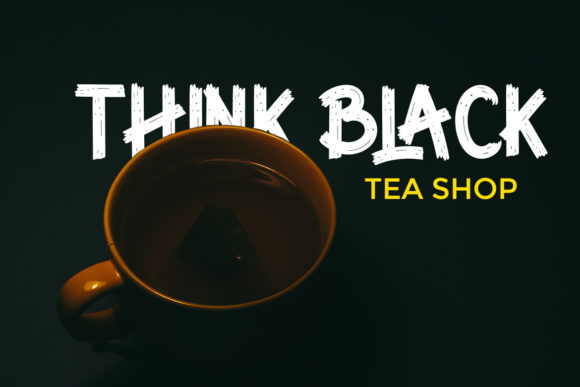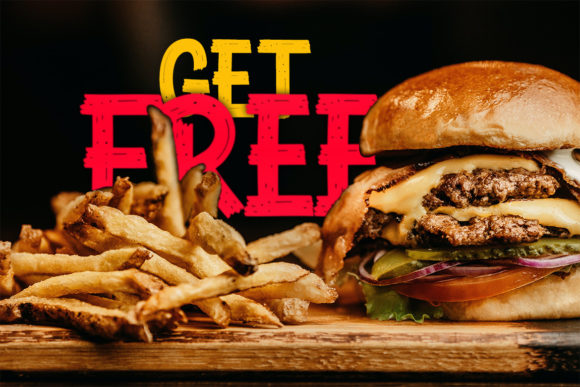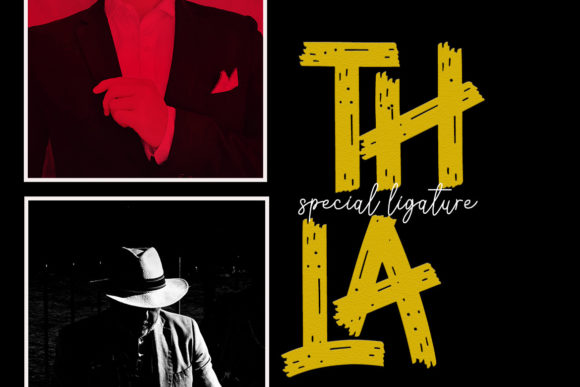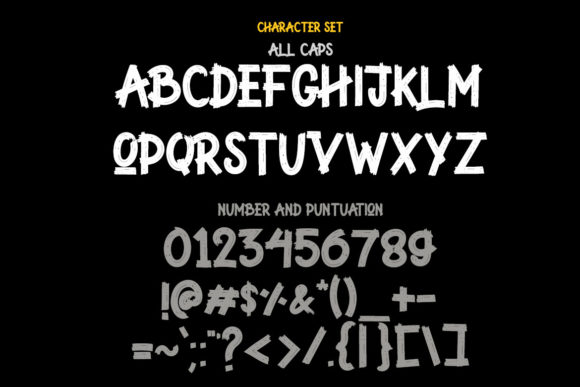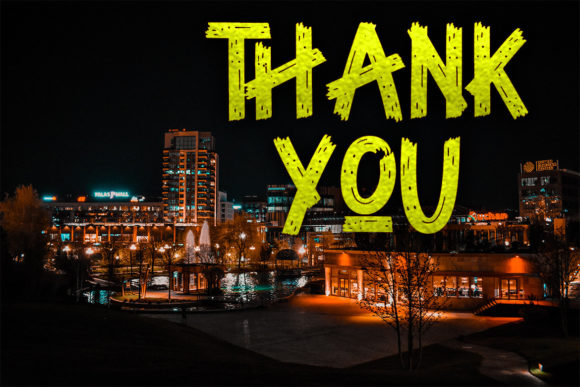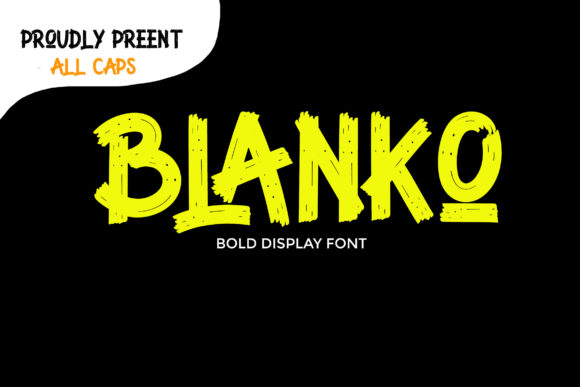
Introducing Blanko Font: A Dramatic Display Font for Creative Expression
In the world of typography, fonts play a crucial role in conveying messages, evoking emotions, and adding personality to designs. For designers, crafters, and creative enthusiasts, finding the right font can make all the difference in elevating a project from ordinary to extraordinary. This is where Blanko Font comes in – a dramatic and incredibly interesting display font that can add a touch of magic to any creation.
The Unique Charm of Blanko Font
Blanko is a paint-brushed font that boasts a distinctive, hand-crafted look. Its dramatic strokes and bold appearance make it perfect for designs that require a statement piece. Whether you’re working on a poster, a logo, a title sequence, or a social media graphic, Blanko Font can add a level of sophistication and elegance that’s hard to achieve with more traditional fonts.
What Makes Blanko Font So Versatile?
One of the standout features of Blanko Font is its versatility. Despite its bold and dramatic appearance, it can be used on a wide range of topics and projects. From fashion and beauty to technology and finance, Blanko Font can adapt to any theme or style. This is due in part to its unique design, which combines the expressiveness of hand-painted letters with the clarity and legibility of a well-crafted font.
Key Features of Blanko Font:
- Dramatic and bold appearance: Blanko Font is designed to make a statement. Its bold strokes and dramatic flair make it perfect for headlines, titles, and other display text.
- Hand-crafted look: The font’s paint-brushed design gives it a unique, hand-crafted look that’s perfect for adding a touch of personality to designs.
- Highly legible: Despite its bold appearance, Blanko Font is highly legible, making it suitable for use on a wide range of projects.
- Versatile: Blanko Font can be used on a wide range of topics and projects, from fashion and beauty to technology and finance.
How to Use Blanko Font in Your Designs
Blanko Font is an incredibly versatile font that can be used in a variety of ways. Here are a few ideas to get you started:
- Headlines and titles: Use Blanko Font to create bold and eye-catching headlines and titles that grab attention and make a statement.
- Logos and branding: Blanko Font’s unique design makes it perfect for use in logos and branding materials, adding a touch of personality and sophistication to your brand.
- Posters and flyers: Use Blanko Font to create bold and eye-catching posters and flyers that stand out from the crowd.
- Social media graphics: Blanko Font can add a touch of elegance and sophistication to your social media graphics, making them perfect for sharing on platforms like Instagram and Facebook.
In conclusion, Blanko Font is a dramatic and incredibly interesting display font that can add a touch of magic to any creation. Its unique design, versatility, and high legibility make it perfect for use on a wide range of projects, from fashion and beauty to technology and finance. Whether you’re a designer, crafter, or creative enthusiast, Blanko Font is an incredible asset to have in your fonts’ library.